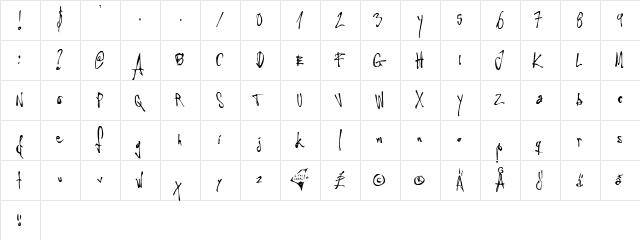
Little Insect Regular
Design Context for Little Insect Typeface
Little Insect is a composed and adaptable typeface that performs quietly and consistently across a wide range of design contexts.